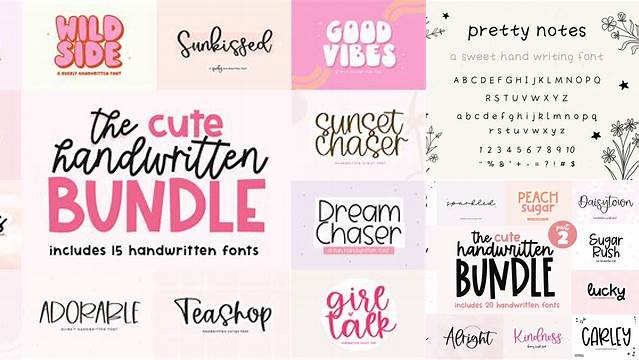
Hey guys! If you're anything like me, you're always on the lookout for ways to add a personal touch to your projects, whether it's designing a poster, crafting a birthday card, or just sprucing up your social media posts. One of the easiest and most effective ways to do this is by using cute handwriting fonts. And the best part? You can often find them for free! This article is all about diving into the world of these charming fonts, where to find them, and how to use them to add a little extra pizzazz to your work. Let's get started!
Choosing the Right Font: Factors to Consider
Choosing the right font might seem simple, but it can make a big difference in the overall impact of your design. Here are some factors to consider: Legibility: The most important thing is that your font is easy to read. Fancy fonts are fun, but if people can't understand what it says, what's the point? Use the font at different sizes, and make sure that the characters are easily distinguishable. Style: Do you want something playful, elegant, or quirky? The font should match the tone of your project. Try different fonts and see how they make you feel. Purpose: Consider where and how you'll use the font. A font that looks great on a poster might not work well on a website or in a document. Test: Always try out your font in your project before committing to it. See how it looks with different colors and sizes. Don't be afraid to experiment with several options before settling on the perfect font.
Exploring Different Styles of Cute Handwriting Fonts
Alright, let's talk about the fun part: the fonts themselves! Cute handwriting fonts come in all shapes and sizes, each with its own unique personality. You've got your bubbly, playful styles, perfect for children's designs or anything that needs a cheerful vibe. These fonts often have rounded letterforms and exaggerated curves, giving them a friendly and approachable feel. Then there are your more elegant and sophisticated handwriting fonts. These are often more stylized, with thinner strokes and delicate flourishes, making them ideal for wedding invitations, greeting cards, or anything that requires a touch of class. If you're looking for something a little more casual, you'll find plenty of fonts that mimic everyday handwriting styles. These fonts can look like they were written with a pen, marker, or even a pencil, giving your designs a personal and handmade feel. They're great for adding a realistic touch to your work and are very versatile. Some fonts even attempt to emulate the look of calligraphy. These are designed to capture the elegance and artistry of traditional calligraphy. With sweeping strokes and varied line thicknesses, these fonts are perfect for creating stunning headlines, logos, and other design elements. Finally, don't forget about the fonts that blend different styles. You'll find fonts that combine the playfulness of bubble letters with the elegance of calligraphy. These hybrid fonts offer versatility and can be used in various projects.
Bubble Letters and Playful Handwriting Fonts
Bubble letters are the quintessential example of fun and playful fonts. Characterized by their rounded, inflated shapes, these fonts evoke a sense of joy and lightheartedness. They are perfect for projects targeting a younger audience, such as birthday invitations, posters for kids' events, or anything that needs a cheerful and vibrant touch. When selecting a bubble letter font, it's important to consider the details. Some bubble fonts feature thick, bold strokes that are easy to read, while others may have thinner lines for a more subtle effect. Experimenting with different colors and sizes can also greatly enhance the visual appeal of your bubble letter designs. Playful handwriting fonts take the concept of fun even further. These fonts often mimic the carefree and energetic style of handwriting. They might incorporate exaggerated loops, quirky letterforms, and a general sense of movement and dynamism. The beauty of these fonts is in their spontaneity and individuality. They are ideal for conveying a sense of personality and warmth in your designs. Think of them as the perfect choice for scrapbooking, handmade crafts, or any project that needs a touch of whimsy. The key is to match the font's style with the overall aesthetic of your project, ensuring that it complements the design instead of clashing with it.
Cursive and Script Fonts for a Touch of Elegance
Cursive and script fonts have an inherent elegance and sophistication, making them a go-to choice for projects that require a refined touch. These fonts mimic the flow and fluidity of handwritten script, with letters often connected to each other. They're perfect for wedding invitations, formal announcements, and any design that needs a touch of class. The choices range from classic and traditional scripts to more modern and stylized variations. Some scripts feature elaborate flourishes and swashes, while others are more subdued and restrained. When choosing a cursive font, consider the readability. Some scripts can be challenging to read, especially at smaller sizes, so make sure that your font is clear and legible. Pair cursive fonts with simple, clean backgrounds to ensure that the text remains the focal point of your design. Script fonts offer an alternative take on elegant handwriting. These fonts often share the same flow and connecting elements as cursive but may have a more structured or stylized appearance. They're perfect for creating a sense of sophistication without being overly formal. Script fonts can be a great option for branding and logos, where you want to convey a sense of luxury and style. Cursive and script fonts can be easily paired with other fonts to create beautiful and effective designs. Consider using a simple sans-serif font for headings or body text to complement the script's elegance.
Casual and Handwritten Styles: The Versatile Choice
Casual and handwritten styles offer versatility and a personal touch, making them a fantastic choice for a wide range of projects. These fonts capture the authentic and approachable feel of real handwriting, providing a natural and organic aesthetic to your designs. They are perfect for creating a sense of authenticity and informality, making them ideal for personal projects, social media graphics, and marketing materials. The beauty of these fonts lies in their variety. You can find fonts that resemble ballpoint pen strokes, felt-tip marker effects, or even pencil sketches. The styles vary greatly, with some fonts offering a more structured and polished look, while others have a more spontaneous and unrefined appearance. The key is to match the font's style with the overall message of your project. If you want to create an informal and friendly vibe, a more casual font may be a better fit. If you are targeting a more sophisticated audience, a more structured font might be more appropriate. These fonts work well when used in combination with other design elements, such as handwritten graphics, illustrations, or textures. This combination can enhance the overall sense of authenticity and individuality in your designs. Consider using these fonts to create a handmade feeling.
License and Usage Guidelines for Free Fonts
Okay, so you've found a font you love. Before you start using it in your projects, let's talk about licenses. Understanding font licenses is crucial to avoid any legal issues and to respect the font designers' hard work. There are different types of licenses you'll come across when downloading free fonts. The most common is the personal use license. This license allows you to use the font for personal projects, like creating birthday cards, designing invitations, or using it for your personal blog or social media accounts. You typically can't use the font for commercial purposes, such as in marketing materials for a business or to sell products. Always be sure to carefully read the license agreement before using any font, even if it's free. A commercial use license is what you'll need if you plan to use the font for any project that will generate revenue or be used for business purposes. This includes things like creating logos, designing websites for clients, creating marketing materials, or using the font in products that you sell. Some fonts may be completely free for commercial use, while others might require you to purchase a commercial license. It's essential to know what the license allows. Pay close attention to the details of the license, such as whether the font can be embedded in PDFs, if you can modify it, and any restrictions on the number of users. If a font is free for commercial use, that usually means you can use it in your projects without paying any fees. However, there may be some exceptions, such as needing to provide attribution to the font designer. Respecting the designer's wishes is always the best approach.
Personal Use vs. Commercial Use: What's the Difference?
Understanding the difference between personal use and commercial use is crucial when using free handwriting fonts. Personal use means you're using the font for non-commercial purposes, projects that are not intended to generate any financial gain. This could be anything from creating a greeting card for a friend, designing a personal blog, or using the font for your own social media posts. Commercial use refers to any use of the font that is connected to a business or that will generate revenue. This includes things like using the font in a logo, creating marketing materials for a client, designing a website for a company, or using the font in products that you plan to sell. The license agreement will explicitly state what the font can and cannot be used for. Always check the license to determine the terms of use. If you are unsure whether your project qualifies as personal or commercial use, it is always better to err on the side of caution and seek clarification from the font designer or supplier. If you have any doubts about the license or what it covers, it is essential to contact the font designer or supplier to obtain explicit permission. This will help you avoid any potential legal issues. When in doubt, purchase a commercial license to ensure you are using the font legally.
Optimizing Your Designs for Different Platforms
Creating amazing designs is great, but you need to make sure your designs look good on any platform! So how do we get our cute handwriting fonts to look amazing everywhere? First, you have to consider the size and resolution. What works well on a large screen might not look great on a phone. Adjust your text size and layout accordingly. Always optimize the font for the intended platform. Also, be mindful of image formats. Choose the correct image format for your design. For example, use PNG for graphics with transparent backgrounds and JPG for photographs. Consider the aspect ratio. Make sure that your design fits the aspect ratio. If not, your design might look skewed or cropped. Think about accessibility. Make your design easy to understand for all users. Use color contrast to create designs. Also, be mindful of text size and spacing. This might vary from platform to platform. Make sure to adjust your text size and spacing. Another option to consider is font compatibility. Not all fonts are compatible with all platforms. Test the fonts. Another thing is to test on multiple devices. Test your designs on different devices. Make sure that your design is readable. Test on both desktop computers and mobile devices. Test your design. By following these best practices, you can ensure that your designs are optimized and look great on every platform. Make your designs look good everywhere by following these tips.